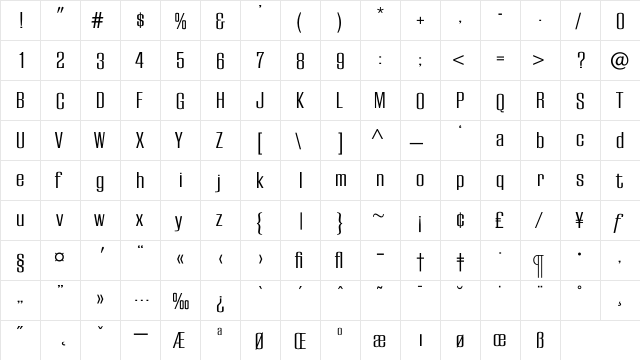
EuropaGrotesqueLight Regular
Design Context for EuropaGrotesqueLight Typeface
EuropaGrotesqueLight takes a measured approach to typography — its balanced proportions and neutral character make it a reliable workhorse for both digital and print work. The delicate stroke weight brings airiness and refinement to layouts.